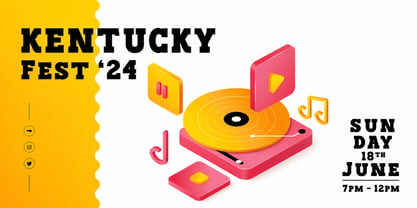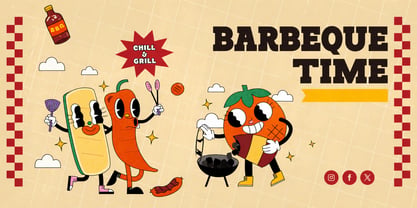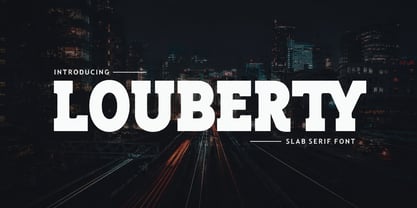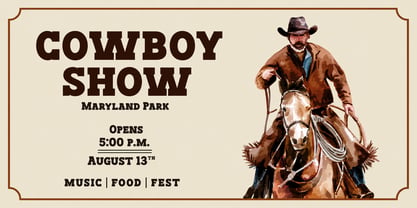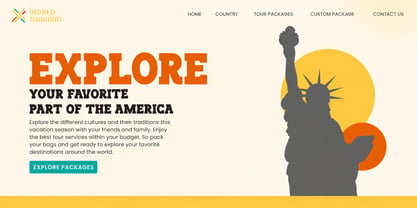
Louberty Slab
The Louberty Slab Font Family was designed by Faizul Muna and published by Unitype Studio. Louberty Slab contains 1 styles. More about this family
Louberty Slab – Slab Serif Font for Independence & Military Designs
Louberty Slab is a bold patriotic slab serif font designed to capture the powerful spirit of freedom, honor, and pride. With its strong strokes, sturdy letterforms, and timeless character, Louberty Slab delivers a commanding typographic presence perfect for patriotic, military, and commemorative design projects.
Inspired by classic American typography and traditional slab serif styles, Louberty Slab combines strength and elegance to create a font that feels both powerful and respectful. Its bold structure ensures excellent visibility, making it an ideal choice for impactful headlines, posters, and celebratory designs.
This patriotic slab serif font is perfectly suited for events and celebrations that honor national pride and freedom. From USA Independence Day to Military Day and Veteran’s Day, Louberty Slab helps designers create visuals that reflect courage, respect, and the enduring spirit of liberty.
Louberty Slab also works beautifully for a wide range of creative applications. Greeting cards, decorations, posters, banners, craft lettering, and embroidery projects all benefit from the font’s bold and distinguished personality.
The balanced design of Louberty Slab ensures that it remains readable and visually strong across different sizes and formats. Whether used for print designs or digital graphics, the font maintains its confident style and patriotic character.
With its timeless slab serif structure and powerful presence, Louberty Slab allows designers to create typography that celebrates freedom, honors heroes, and reflects the values of strength, courage, and independence.
Bold Slab Serif Font
Strong and sturdy letterforms inspired by classic American typography.
Patriotic Style
Perfect for designs celebrating freedom, honor, and national pride.
Powerful Display Font
Ideal for headlines, posters, banners, and commemorative graphics.
Timeless American Character
A classic slab serif look that evokes heritage and tradition.
Craft & Decoration Friendly
Great for DIY crafts, embroidery, Cricut, and decorative projects.
Multilingual Support
Extended characters for international language use.
• USA Independence Day Designs
• Veteran’s Day & Military Day Graphics
• Patriotic Posters & Banners
• Greeting Cards & Celebratory Invitations
• Craft Lettering & Embroidery Projects
• Cricut & Cutting Machine Designs
• T-Shirt & Merchandise Graphics
• Decorations & Event Signage
Louberty Slab is a powerful bold slab serif font that embodies the spirit of independence, strength, and national pride. Its strong structure and timeless character make it the perfect choice for designers who want to create impactful patriotic designs.